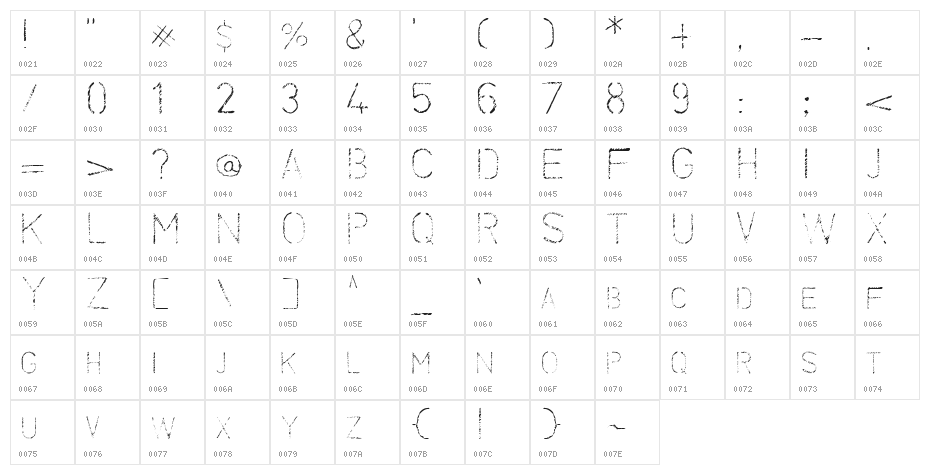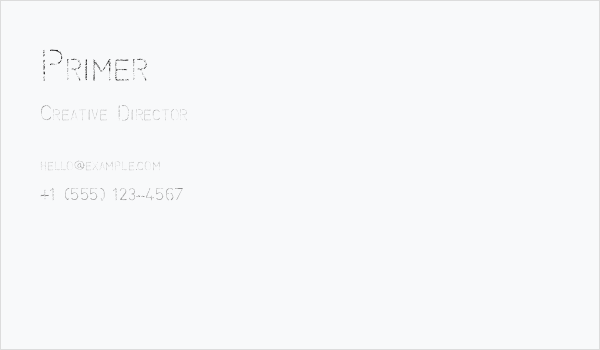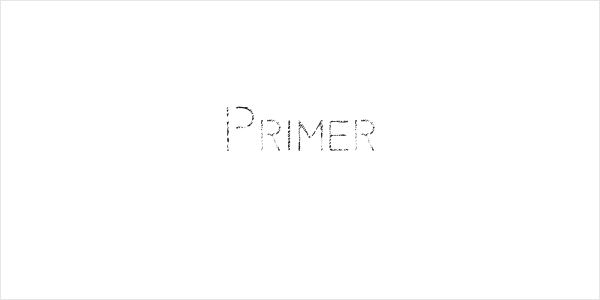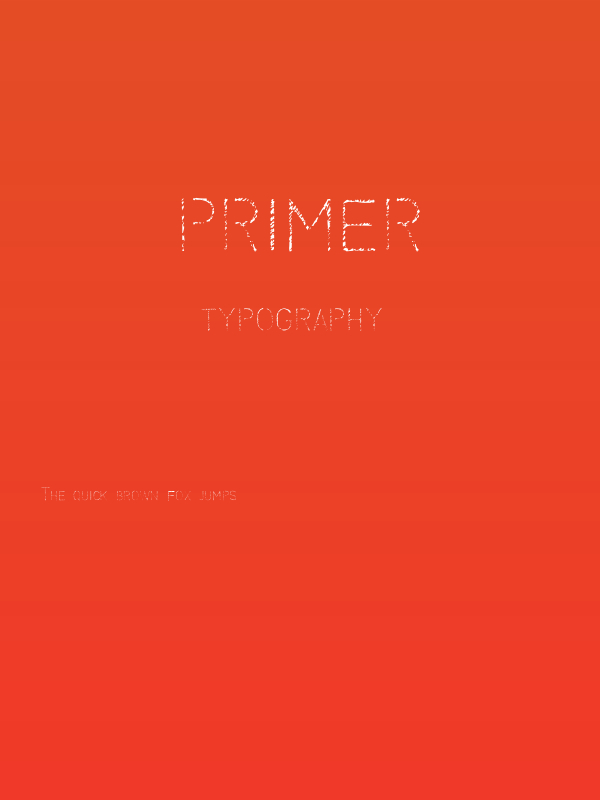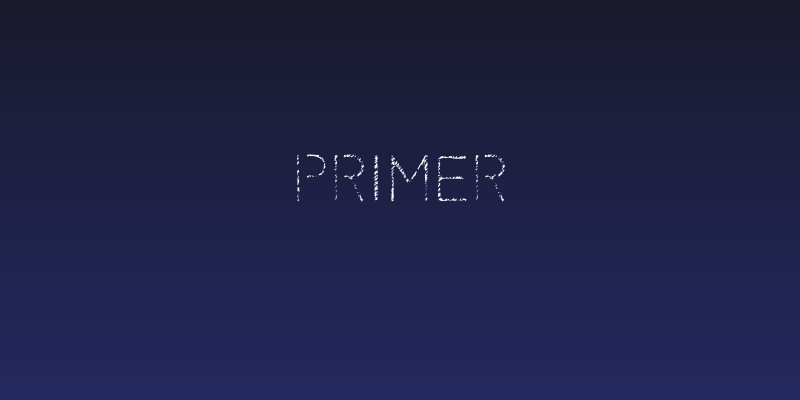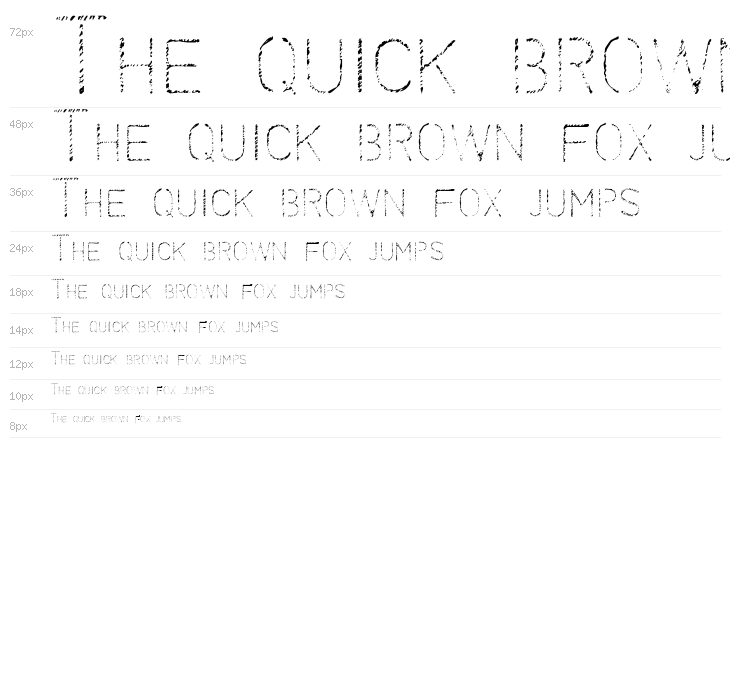
Primer Font
Primer Description
This font features a distressed, textured appearance that gives it a rugged and worn-out look. The characters are uppercase and lowercase letters, numbers, and a variety of special symbols. Each letter and number is designed with a unique, grunge-like texture that adds a sense of depth and character. The font's style is reminiscent of vintage or industrial themes, making it suitable for projects that require a bold and edgy aesthetic. The irregularities in the texture provide a handcrafted feel, while the overall structure of the characters remains clear and legible.
Proposed ProjectsIdeal for branding, posters, album covers, and any design requiring a vintage or industrial theme.